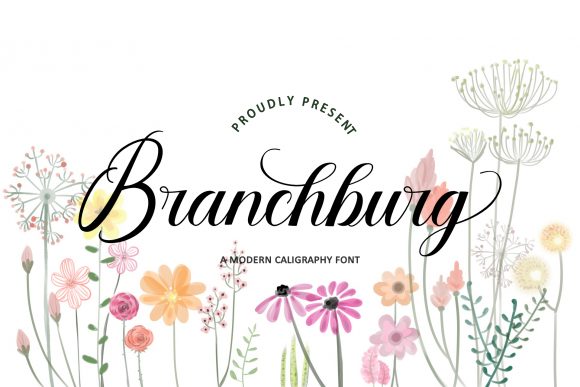
Welcome to the enchanting world of Branchburg Script, where elegance meets artistic brilliance. This captivating font family, lovingly crafted by Coretanletter, is the perfect choice for creating invitations that capture the essence of your special day.
Branchburg Script is not just a font; it's an expression of artistry, a testament to the power of handwritten beauty. Its delicate strokes and swirling curves evoke a sense of timeless sophistication, while its unique character adds a touch of whimsy that will leave a lasting impression on your guests.
Picture your invitations adorned with the flowing lines of Branchburg Script, each letter dancing across the page like a work of art. The light, airy feel of this font creates a sense of ethereal grace, adding a touch of magic to your special announcements.
With Branchburg Script at your fingertips, you'll find endless possibilities for customization. Its PUA encoding opens up a world of glyphs and ligatures, allowing you to create intricate designs that showcase your personal style. Whether you're designing wedding invitations, birthday announcements, or any other special occasion, Branchburg Script will elevate your words into something truly unforgettable.
But it's not just about aesthetics; Branchburg Script is also a practical choice. Its high legibility ensures that your invitations will be easy to read, while its versatility means that it can complement any theme or design scheme.